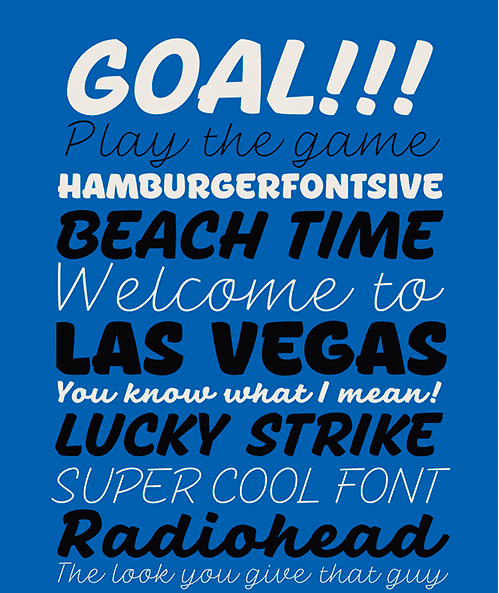
Balneario Script Font Family
“Balneario Script” is a small tribute to a coastal port and tourist city. Through the Sign Painters, in its golden age, a clear, friendly, practical, and functional way of making itself heard evolved. Far from wanting to be perfect, a typeface seeks to be close, warm, and casual.